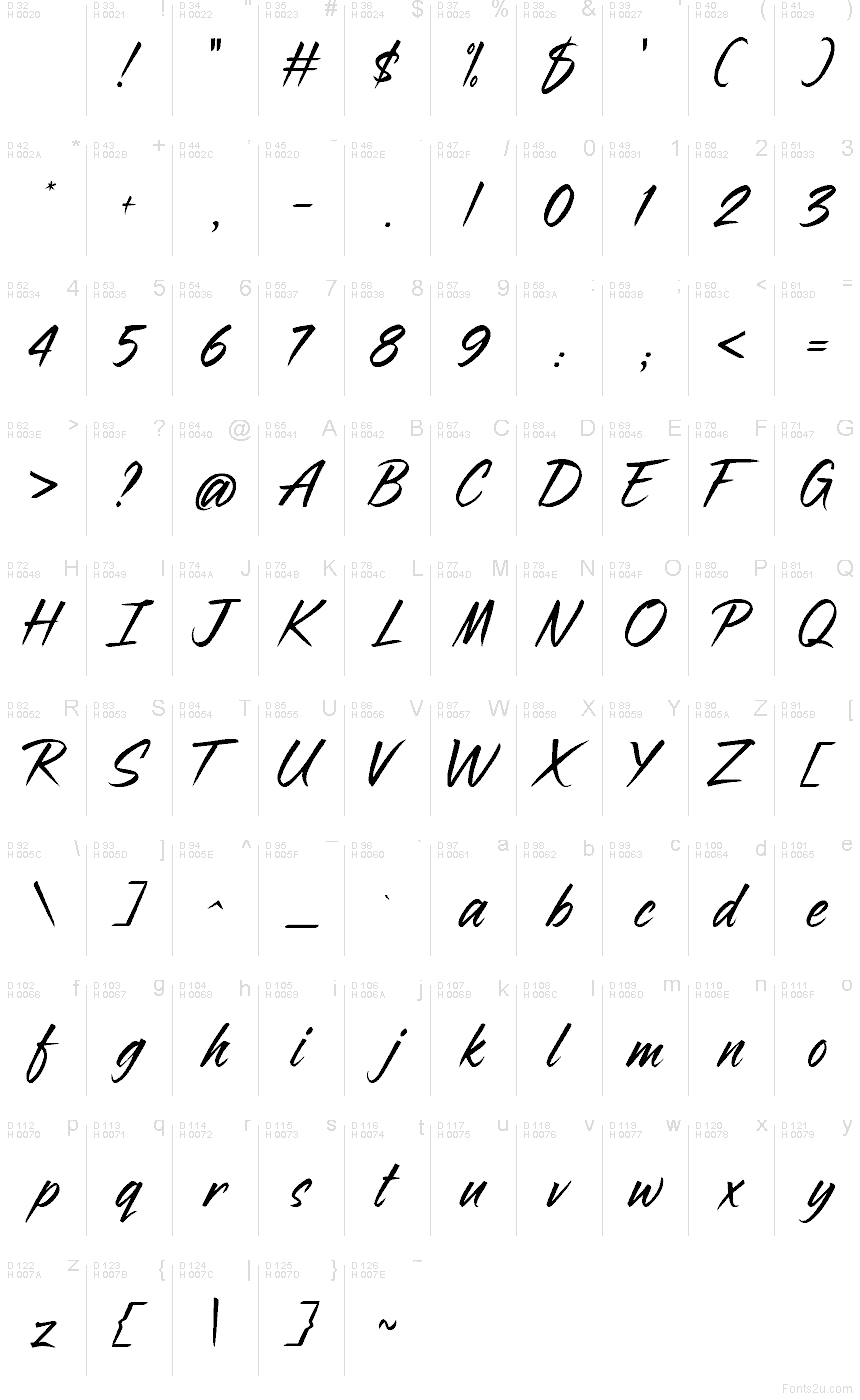
Parfum des Atlantes
Parfum des Atlantes font by BlackFridayFont FMF is a free handwritten font that captures the sweep of an inked signature on glossy card stock. Its lean, slanted letters feel fast and fluid, with tight connections that read like a confident flourish at the bottom of a love letter or perfume ad. The strokes are silky rather than rough, so even at larger sizes the script keeps a polished, editorial sheen instead of looking casual or messy.
Using Parfum des Atlantes, you can give fragrance packaging, beauty branding, social media graphics, wedding invitations, boutique logos, and product labels a sophisticated handwritten voice. This free font shines when you let it breathe in headlines or short phrases, then support it with a clean sans serif for body text. Keep tracking snug to preserve its luxurious, ribbon-like flow.